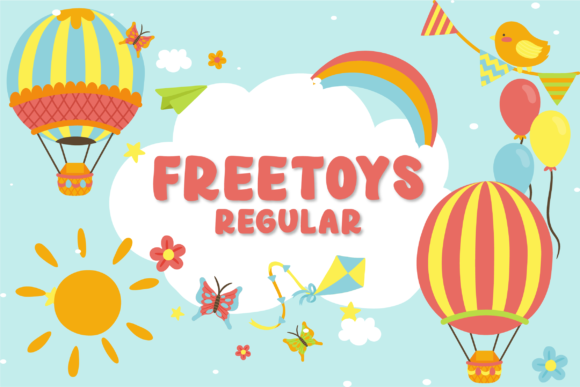
Freetoys Regular Font
Imagine your designs bursting with life, brimming with the infectious joy and carefree spirit of childhood! Allow us to introduce Freetoys Regular, a display font that captures the essence of youthful exuberance in every stroke and curve. Created by the visionary font designer, Becraft, Freetoys Regular is more than just a font; it's an invitation to unleash your creativity and spread happiness through your designs.
Freetoys Regular draws inspiration from the unbridled joy and boundless energy of children at play. Each letter is meticulously crafted to evoke a sense of wonder and delight, reminiscent of vibrant colors and laughter-filled playgrounds. With its playful and whimsical nature, this font possesses an uncanny ability to transform your designs into captivating masterpieces that resonate with audiences of all ages.
Step into a world where imagination reigns supreme and let Freetoys Regular be your trusted companion. Whether you're crafting posters that pop, designing eye-catching logos, or creating website interfaces that exude warmth and friendliness, Freetoys Regular is the font that effortlessly elevates your creations.
With its comprehensive character set, including uppercase and lowercase letters, numbers, and a range of punctuation marks, Freetoys Regular ensures versatility and adaptability across a multitude of design projects. Experiment with different colors, sizes, and layouts to create a visual symphony that perfectly reflects your unique style and vision.